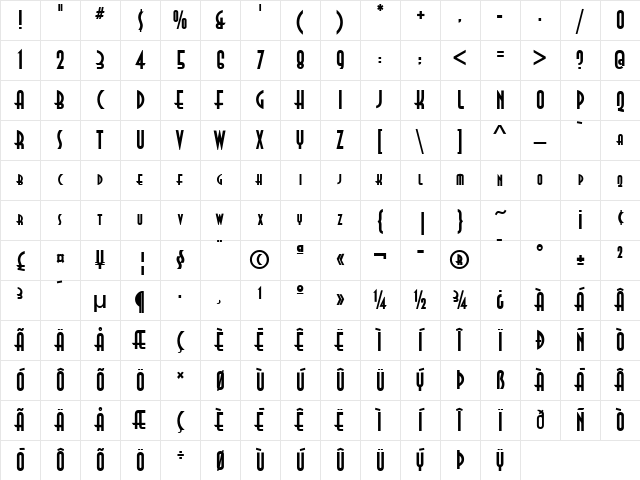
Asia Bold
Design Context for Asia
Asia is a composed and adaptable typeface that performs quietly and consistently across a wide range of design contexts. Its bold stroke weight gives it real presence on the page.